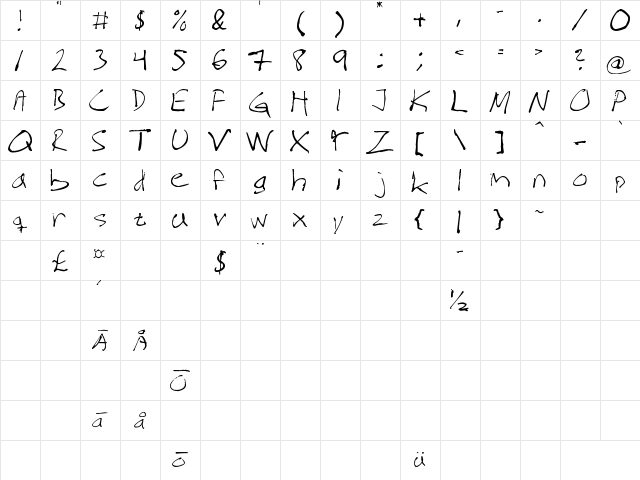
Magnus Handwriting Regular
Design Context for Magnus Handwriting Typeface
Magnus Handwriting flows with the natural rhythm of handwritten lettering, making it ideal for designs that call for warmth and personal expression.
Font Pairing: Combine Magnus Handwriting with a simple geometric sans for maximum contrast — the tension between flowing curves and clean structure is a classic typographic pairing.
Pro Tip: Pair Magnus Handwriting with a clean sans-serif for supporting text. The contrast between fluid script and geometric structure creates an elegant typographic hierarchy.